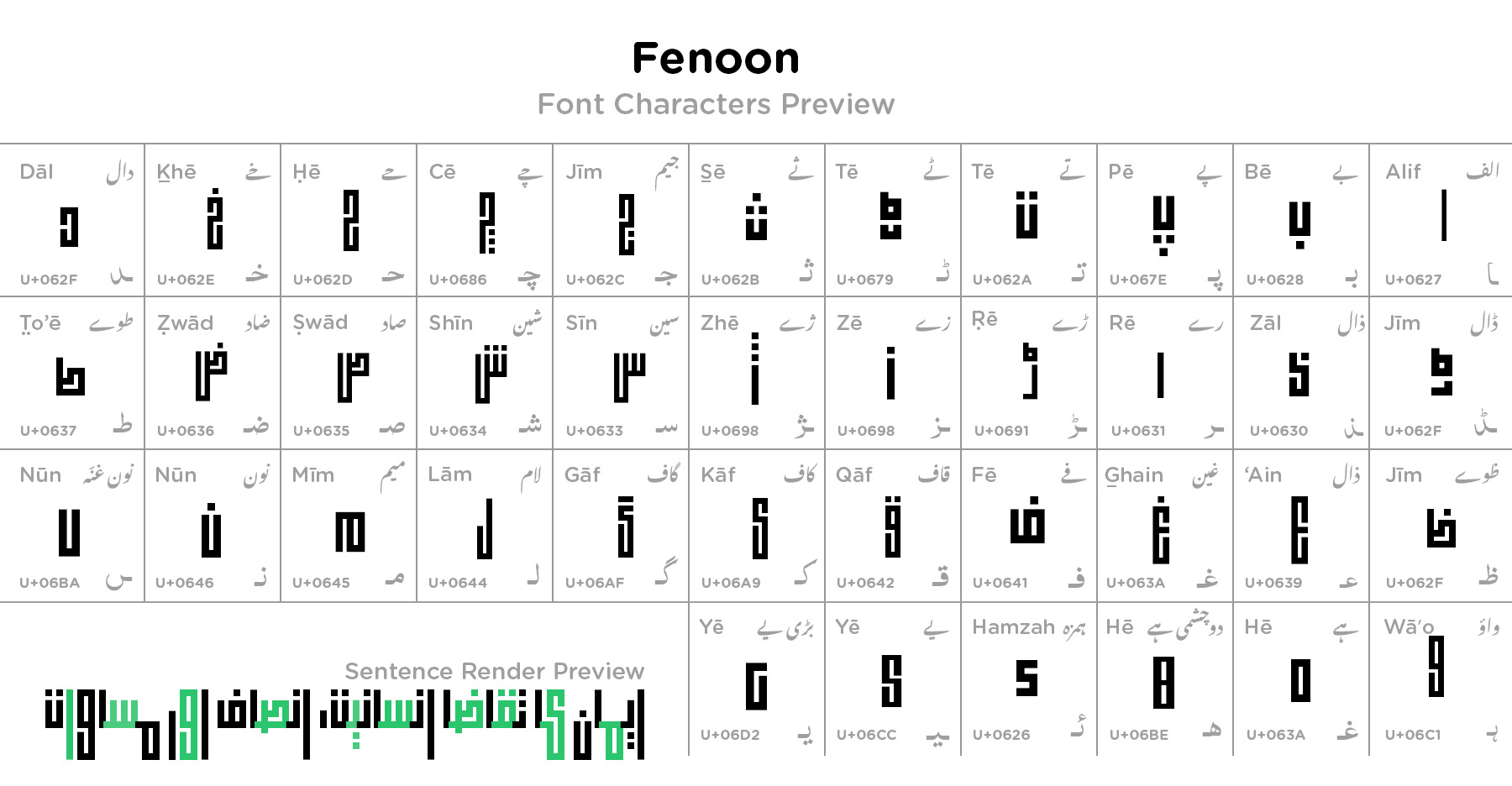
Fenoon is a square Kufic font created by Mostafa El Abasiry. It was launched on 13th April, 2021 and has a maze-like appearance. An Arabic display typeface with a geometric appearance, it has 267 characters set and 279 glyphs. With a horizontal or straight baseline, the font has elongated letters and is wider upwards. Furthermore, its characters have sharp or pointy curves and also have a block-like letter. The font is available in three different versions:
- Fenoon Regular
- Kufigraph Light
- Kufigraph Normal
- Kufigraph Medium
- Kufigraph Bold
In addition, it features a medium font width and can support Latin, Arabic, and different symbols. The different versions of the font, as discussed above, add a visually aesthetic touch to your design project. Its light version is the best option to use for subtle designs, while the regular version gives a balanced or even look. For headings or titles, you can use the bold version of Fenoon. The font can support different Unicode blocks such as Basic Latin, Mathematical Operators, Latin-1 Supplement, Arabic Presentation Forms-A, Arabic, General Punctuation, and Arabic Presentation Forms-B.